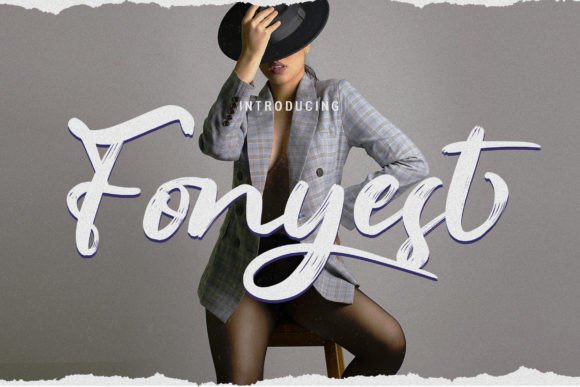
Immerse yourself in the world of Fonyest, a breathtaking script font that captures the essence of captivating expression. Designed by the renowned Lathiif Studio, Fonyest embodies the spirit of creativity, allowing you to transform your ordinary words into exquisite pieces of art.
With its effortless flow and elegant curves, Fonyest exudes a charm that is impossible to resist. Each letter, meticulously crafted with the utmost care, dances upon the page, leaving a trail of beauty in its wake. Whether you seek to create stunning logos, enchanting invitations, or heartfelt messages, Fonyest will be your trusted companion, guiding you towards typographic excellence.
As a script font, Fonyest possesses an inherent versatility that knows no bounds. Its ability to adapt to various design aesthetics makes it an indispensable tool for any creative endeavor. Whether you're crafting delicate wedding invitations, designing eye-catching posters, or adding a personal touch to your social media posts, Fonyest will elevate your creations to new heights.
Beyond its aesthetic appeal, Fonyest is a font that speaks to the soul. Its organic and fluid nature evokes a sense of authenticity and emotion, making it the perfect choice for expressing heartfelt messages and personal stories. Let your words take flight with Fonyest, as it transforms them into poignant expressions that resonate with your audience.